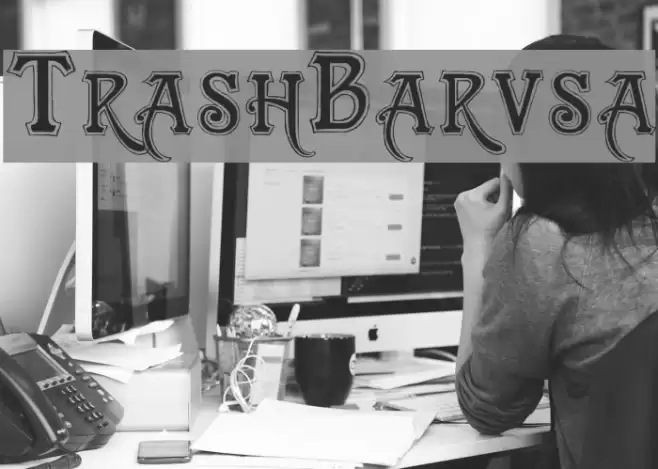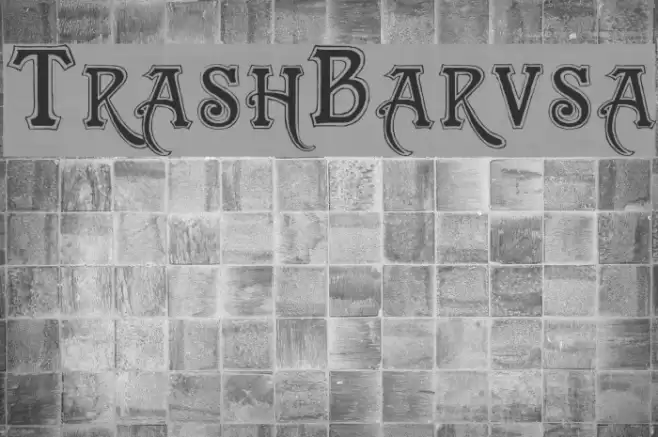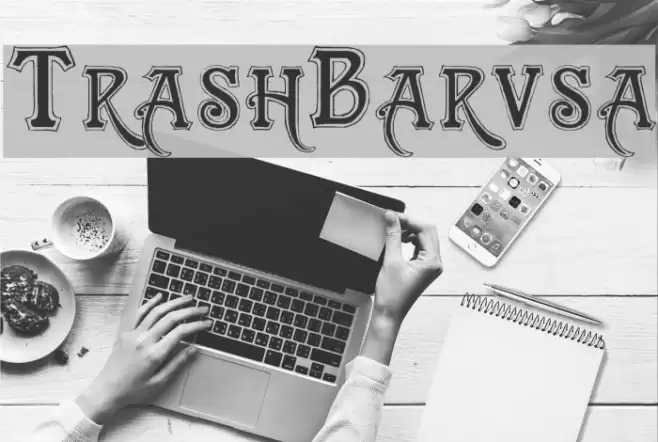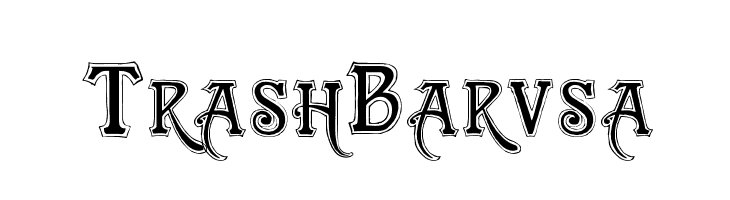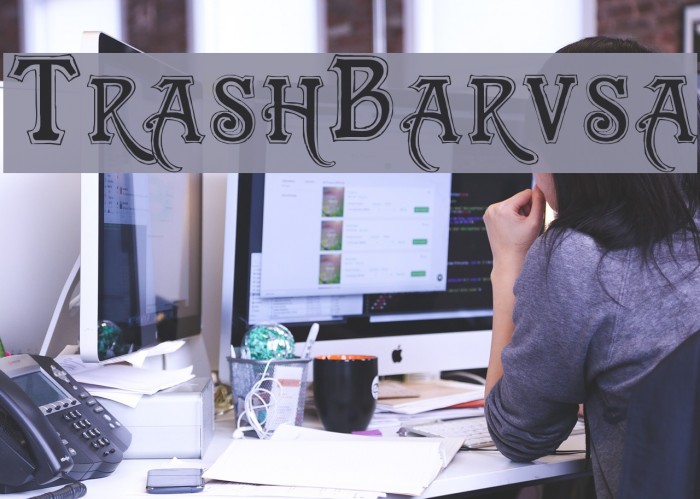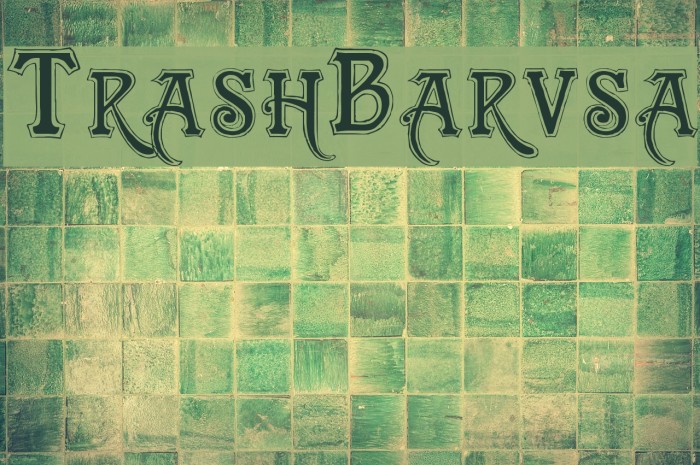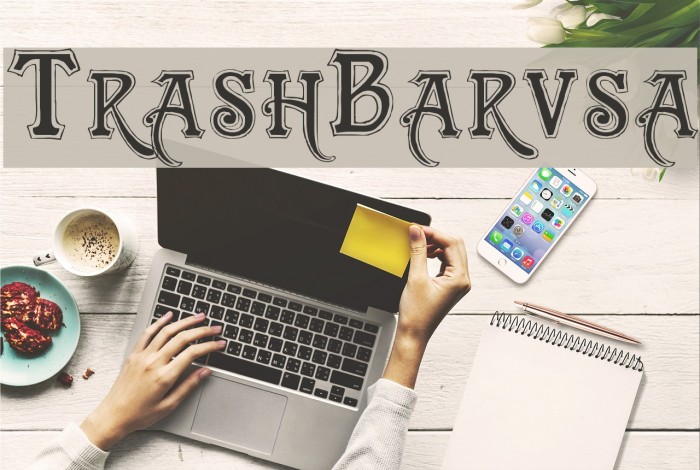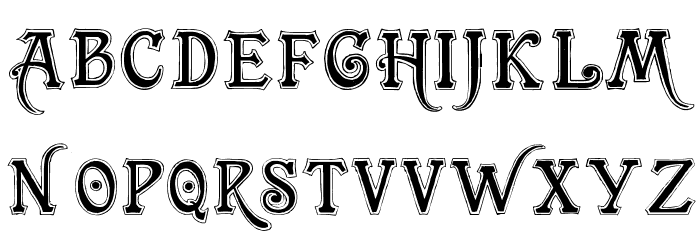
TrashBarusa Font
TrashBarusa Description
This font features a bold and decorative style with intricate detailing on each character. The uppercase letters exhibit a unique blend of traditional serif elements with ornate, swirling embellishments that give it a gothic and vintage feel. The characters are well-defined with a strong presence, making them suitable for impactful designs. The font's design includes sharp edges and pointed serifs, adding to its dramatic and eye-catching appearance. The spacing between characters is balanced, ensuring readability while maintaining its decorative nature. This font is ideal for projects that require a touch of elegance and historical flair.
A bold, decorative font with ornate, gothic-inspired detailing from Uncategorized fonts.
- Proposed Projects: Ideal for vintage posters, book covers, branding, and event invitations.
- Overall Style: Vintage, Gothic, Decorative